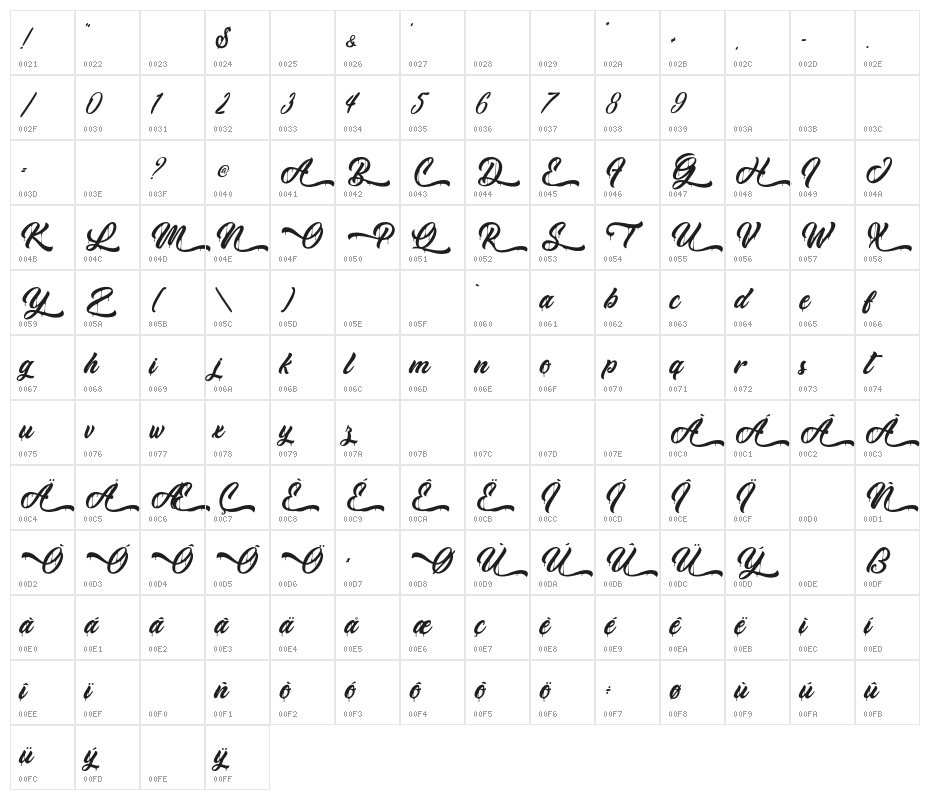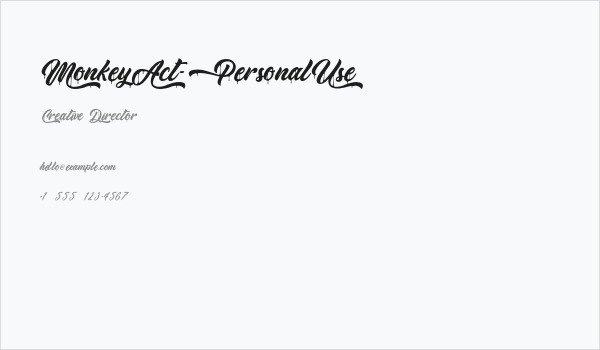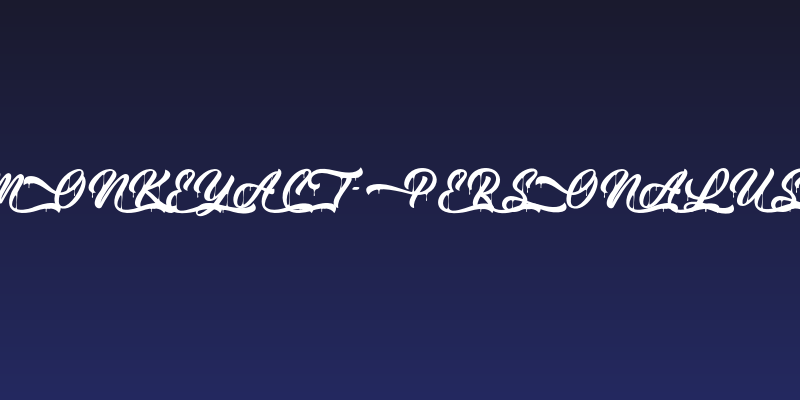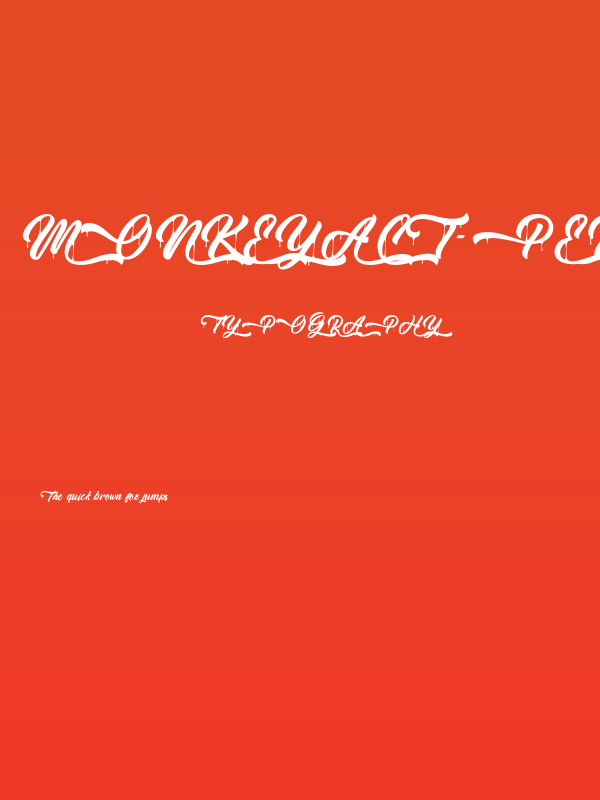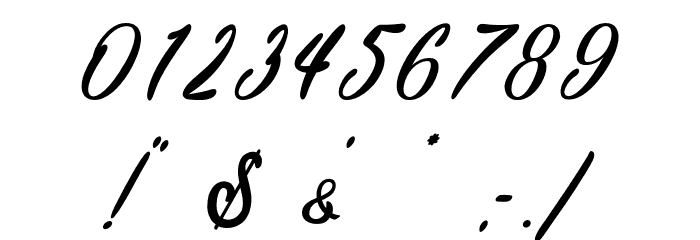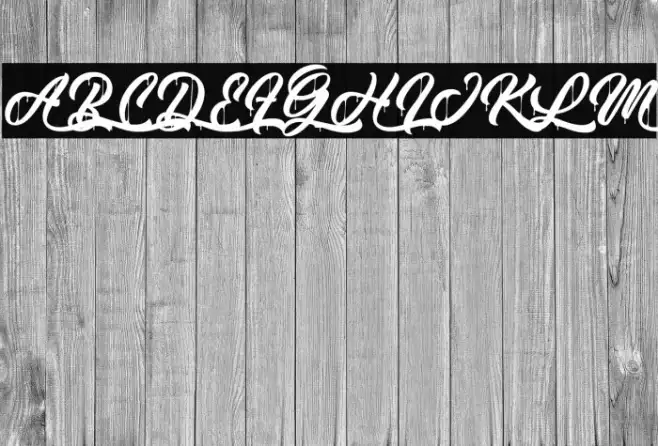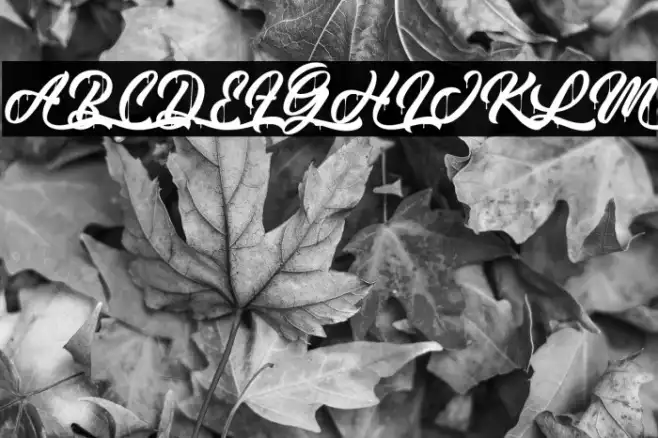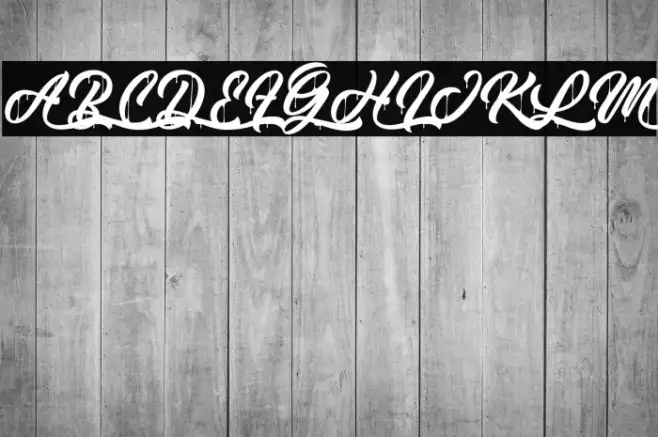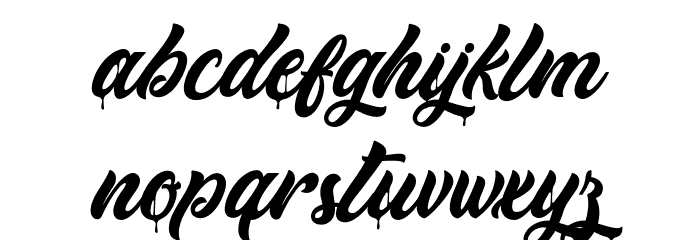
MonkeyAct-PersonalUse Font
MonkeyAct-PersonalUse Description
This font features a bold and expressive script style, characterized by its fluid, cursive letterforms that mimic the natural flow of handwriting. The uppercase letters are ornate and interconnected, creating a sense of elegance and sophistication. The lowercase letters maintain a consistent style, with smooth curves and loops that enhance readability while retaining a decorative flair. Numbers and special characters are designed to match the overall aesthetic, ensuring a cohesive look across all text. The font's bold weight and high contrast between thick and thin strokes add to its dramatic appearance, making it suitable for eye-catching designs.
| Proposed Projects | Ideal for wedding invitations, branding, logo design, and decorative headlines. |